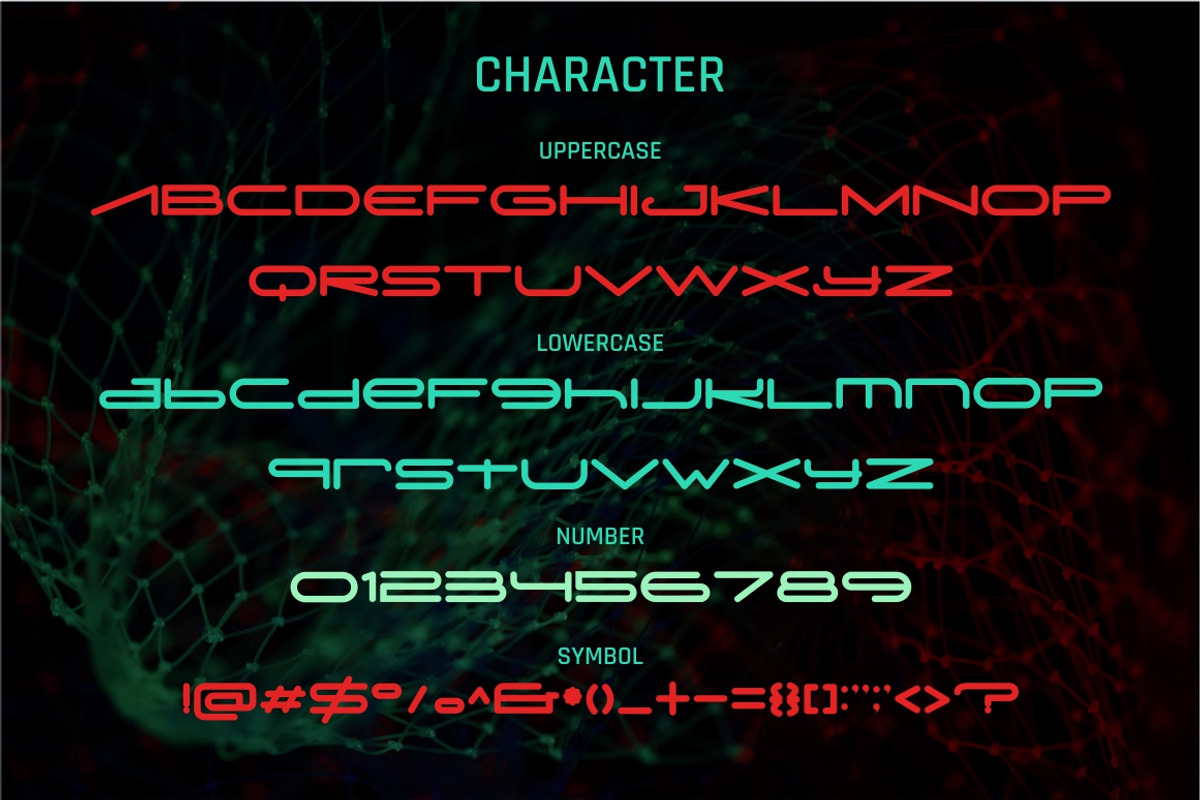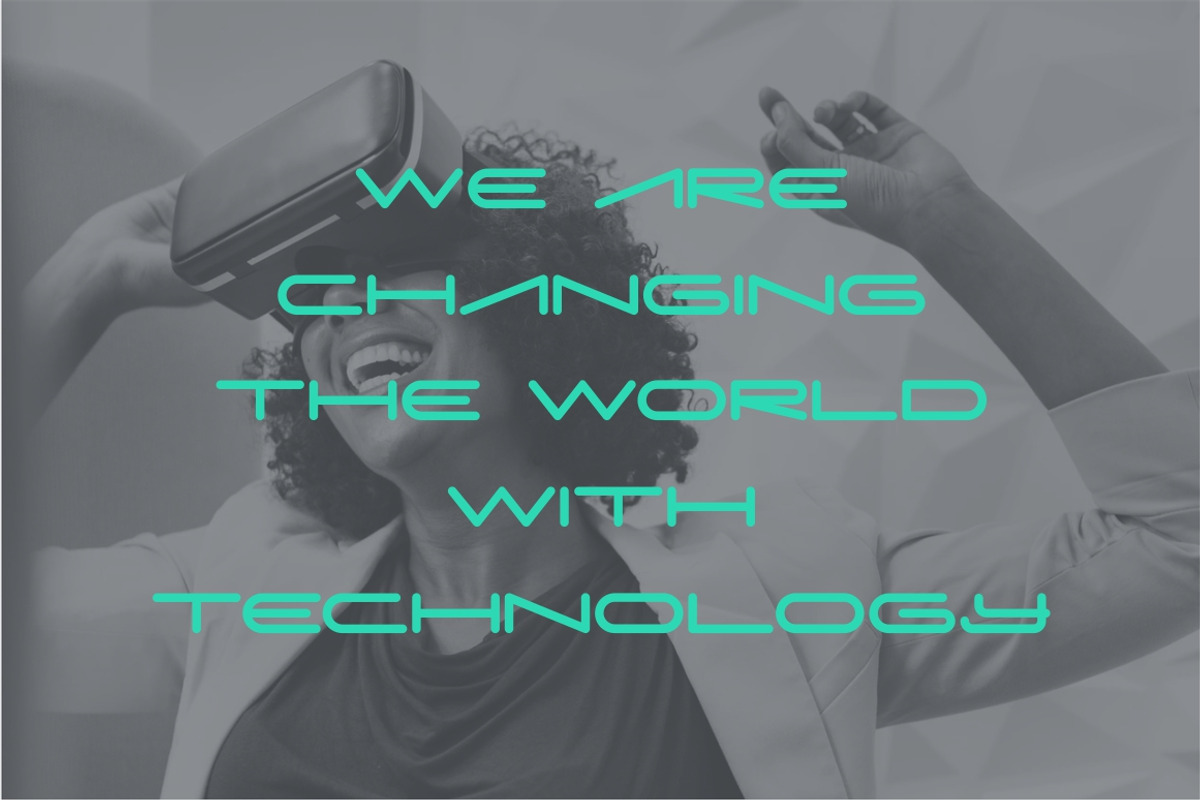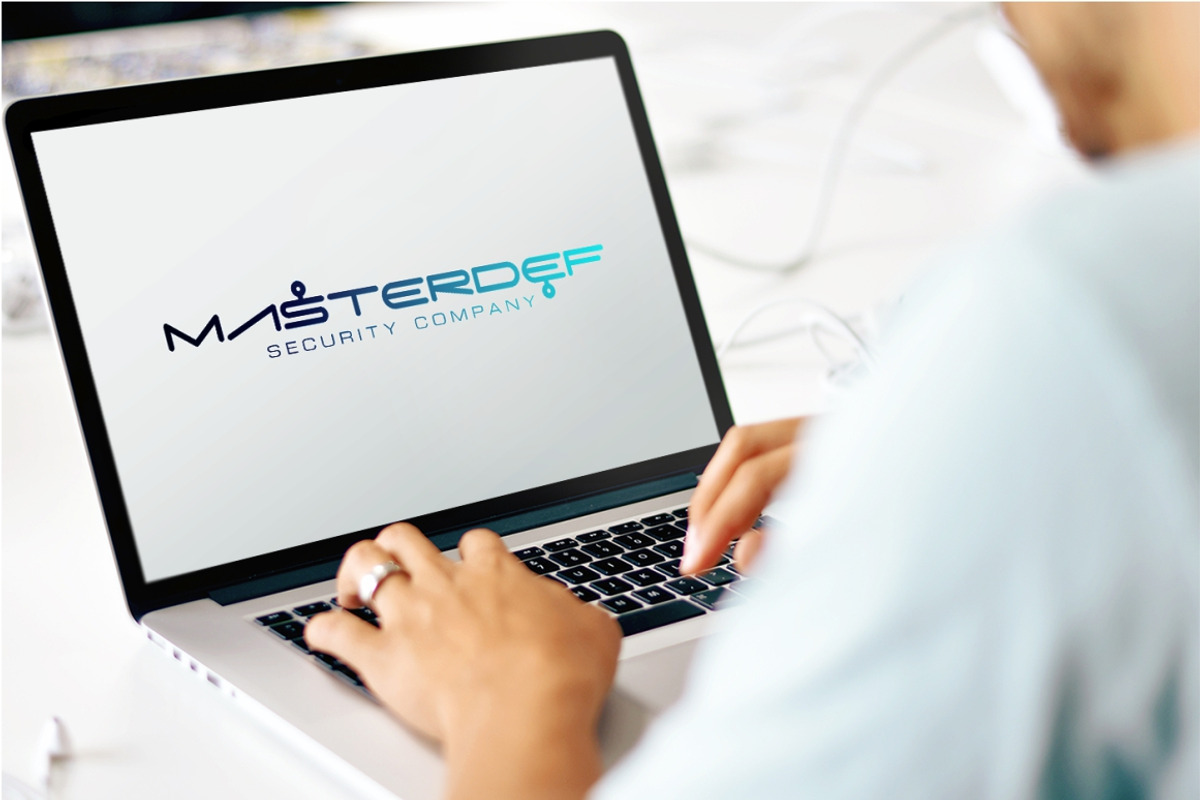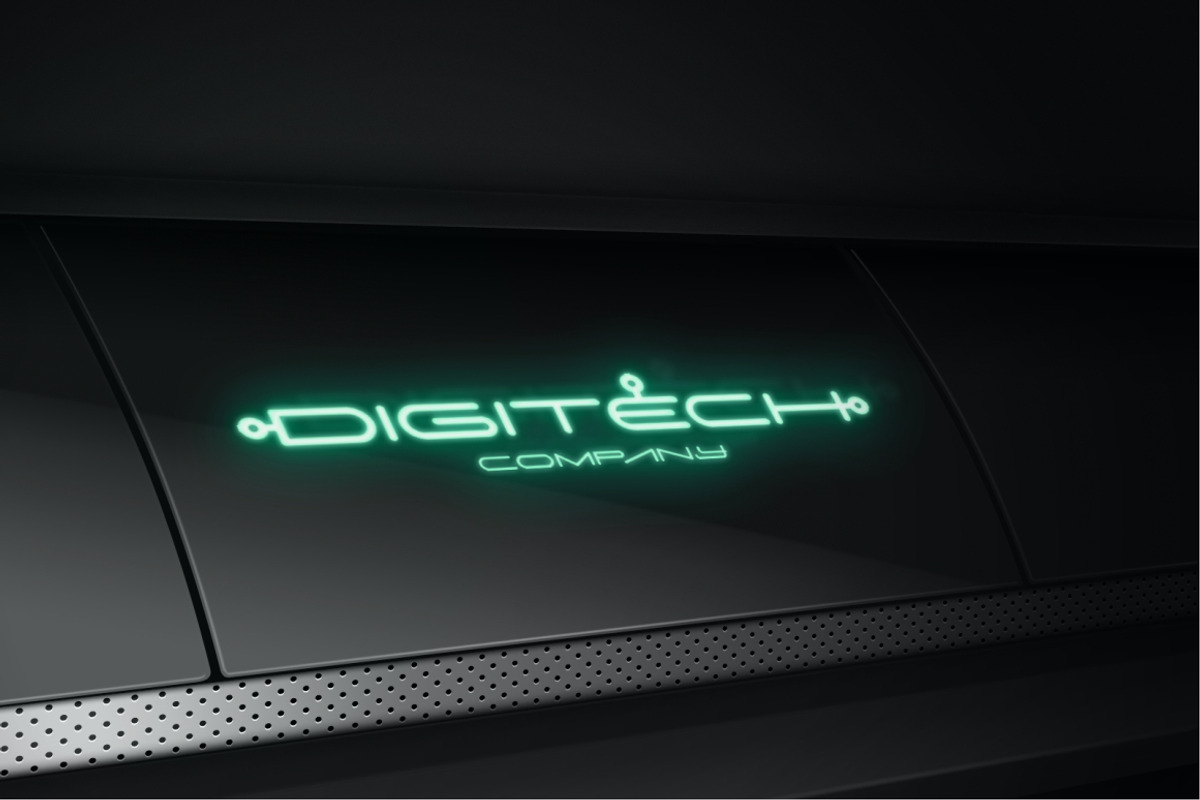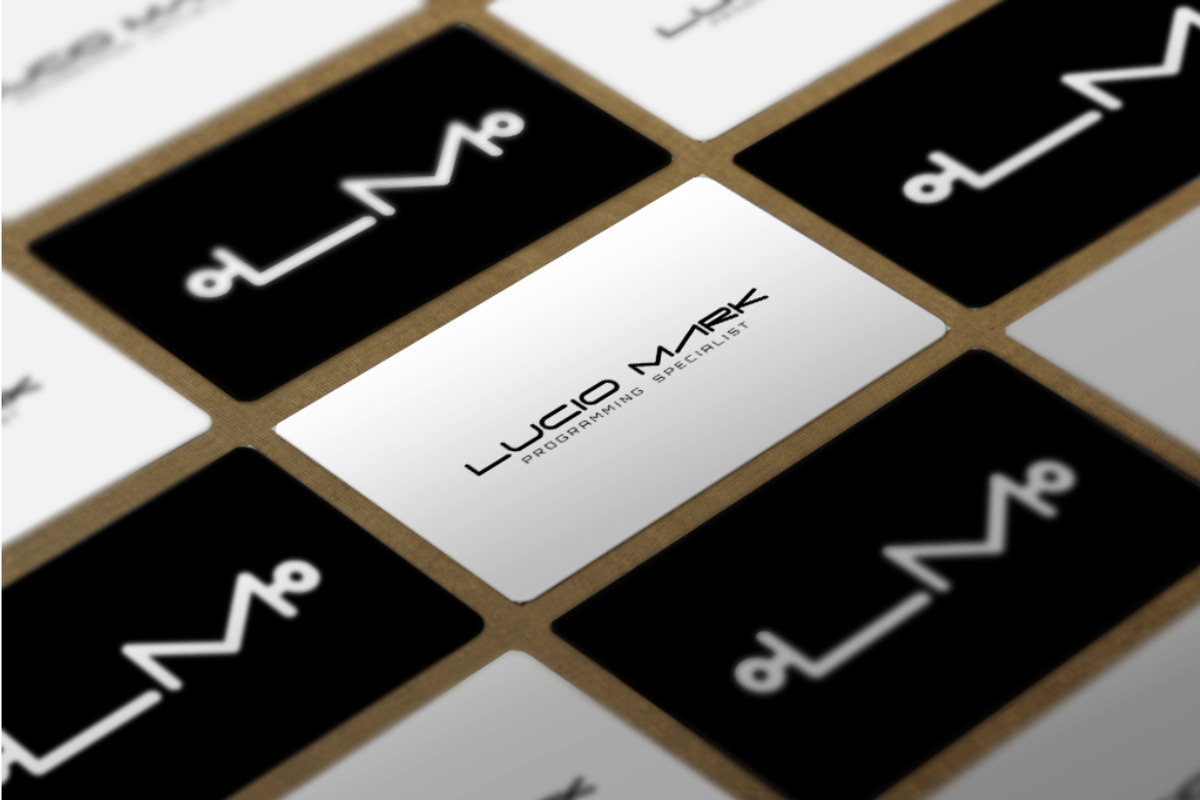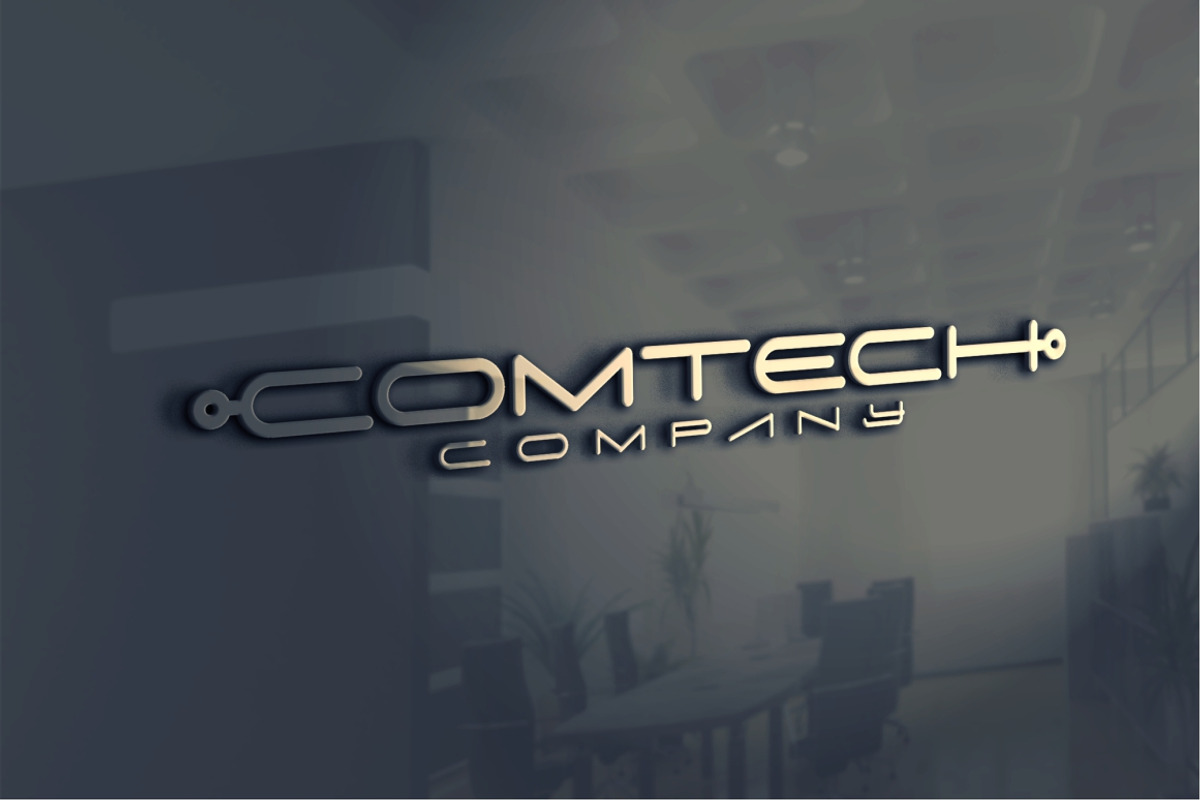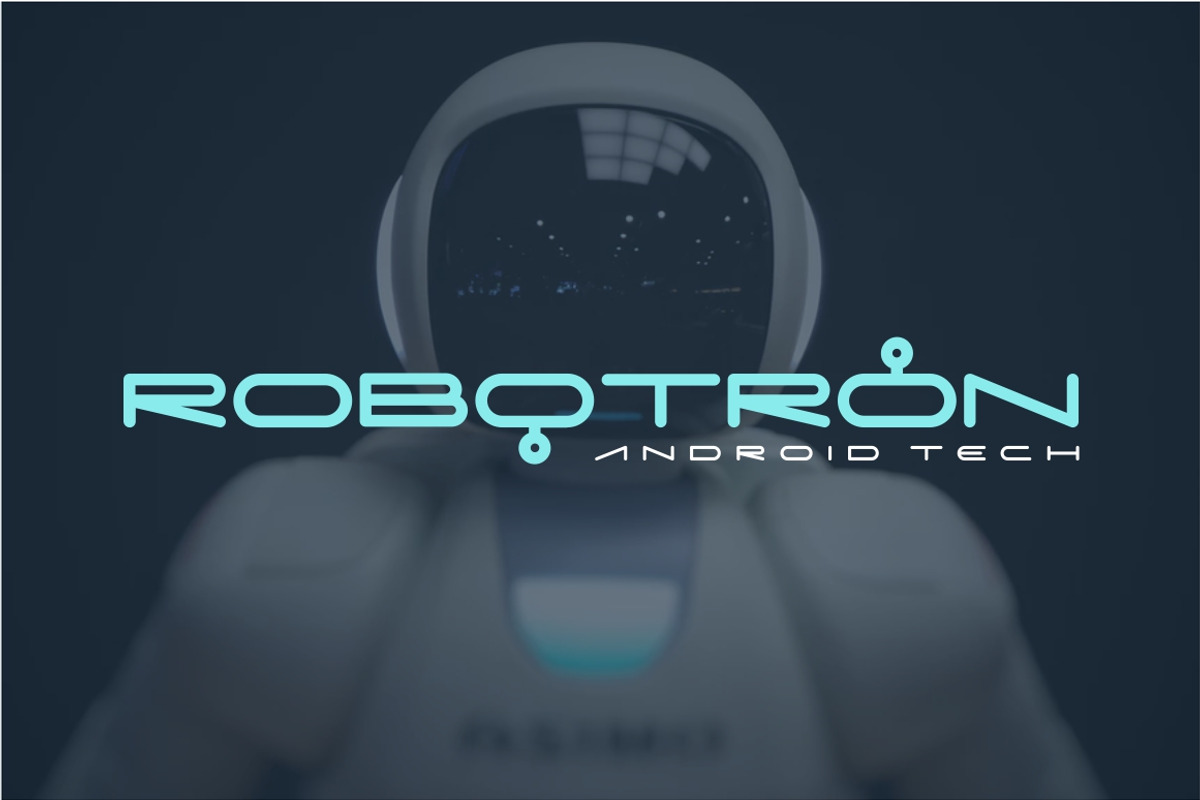
Digitechno - Futuristic Display Font
Introducing a new Futuristic Display Typeface Called "Digitechno". Inspired from Modern, Digital, Technology, Futuristic Typeface. Digitechno best uses for Logo, cover, poster, branding, UI, Titles, and many more.